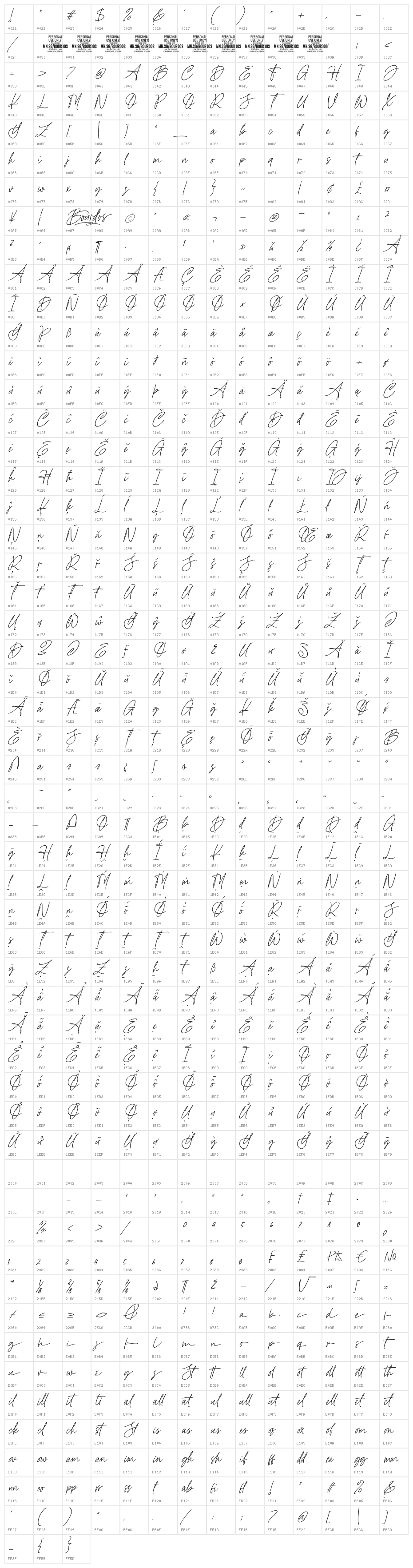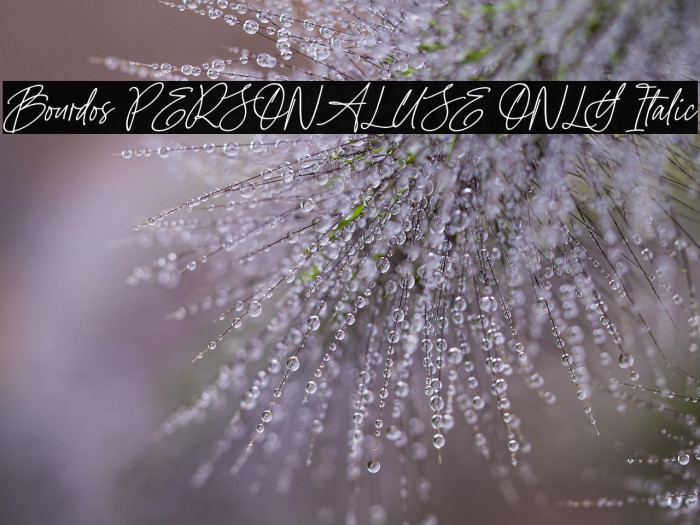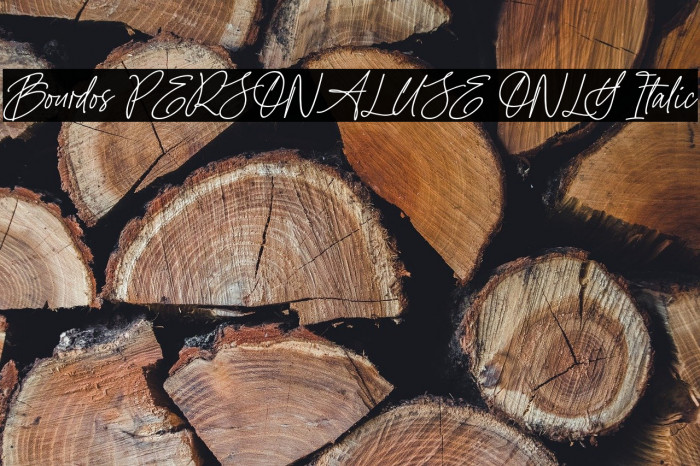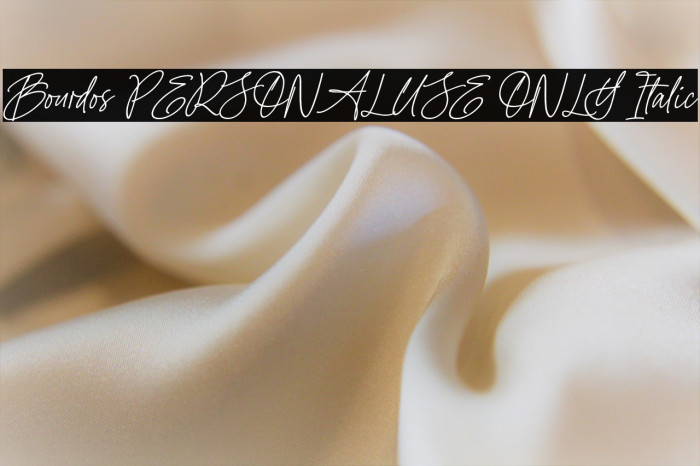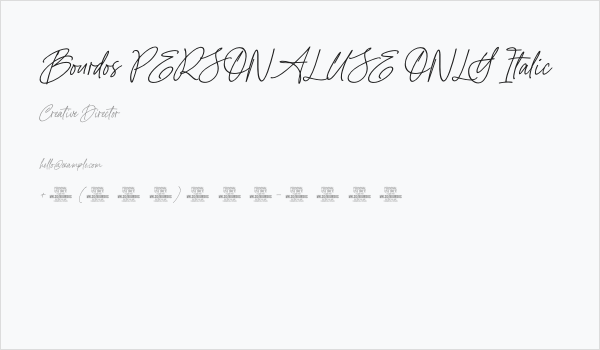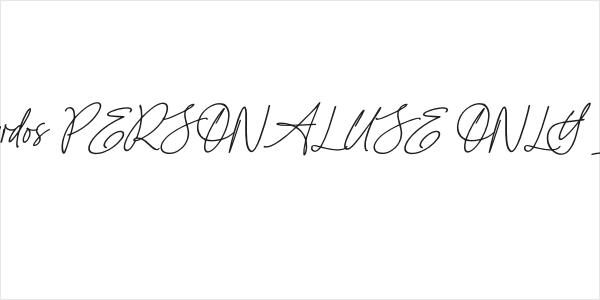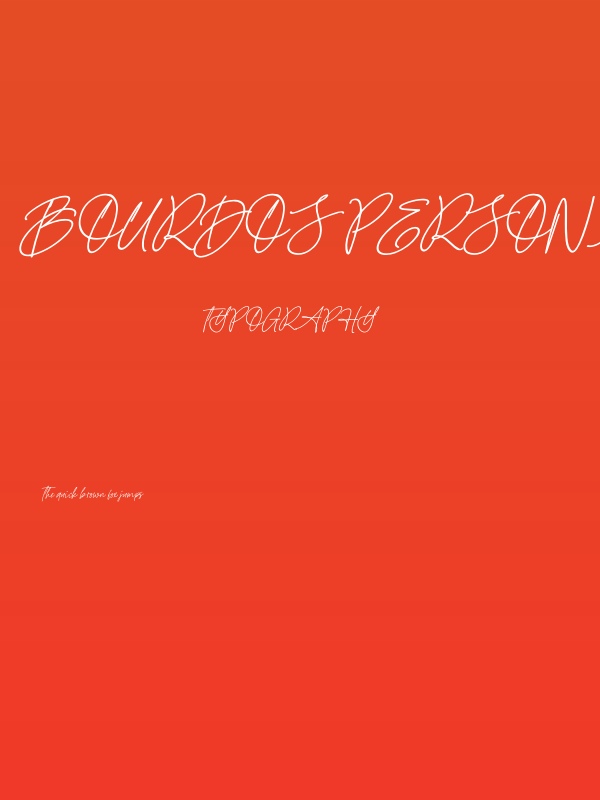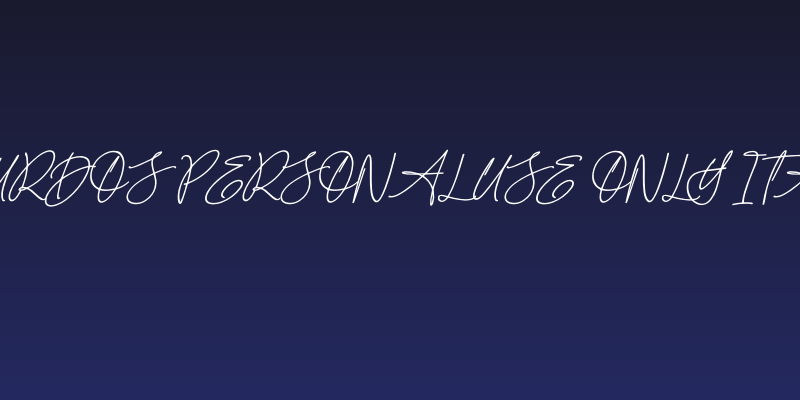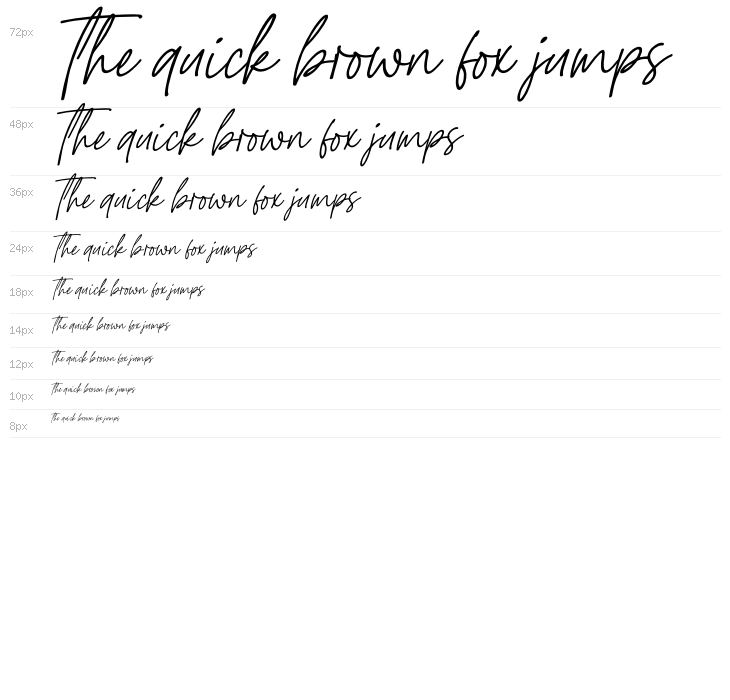
Bourdos PERSONAL USE ONLY Italic Font
Bourdos PERSONAL USE ONLY Italic Description
This font features a dynamic and flowing script style, characterized by its elegant and fluid letterforms. The uppercase letters are tall and slightly slanted, giving a sense of movement and grace. The lowercase letters maintain a consistent style, with smooth curves and a natural handwritten appearance. The font includes a full set of numerals and a variety of special characters, each designed with the same attention to detail and stylistic flair. The overall impression is one of sophistication and artistic flair, making it suitable for projects that require a personal touch.